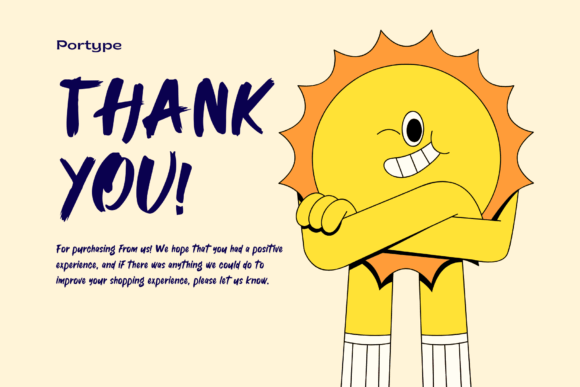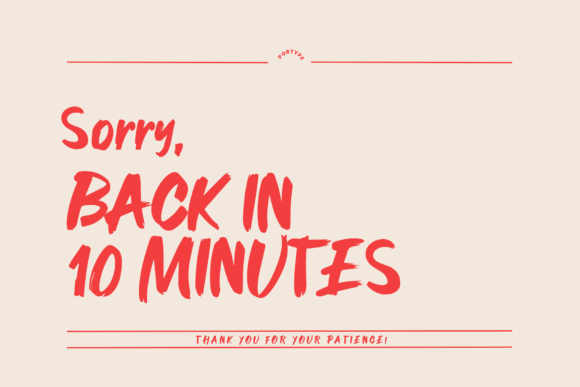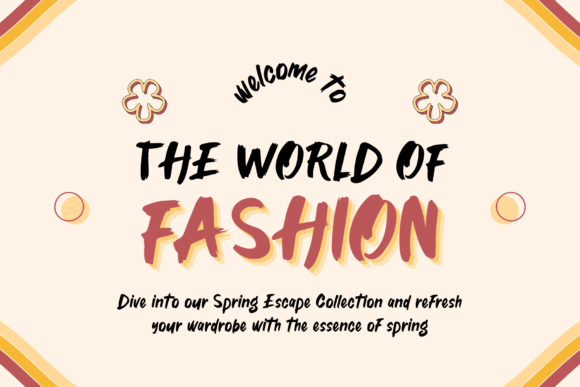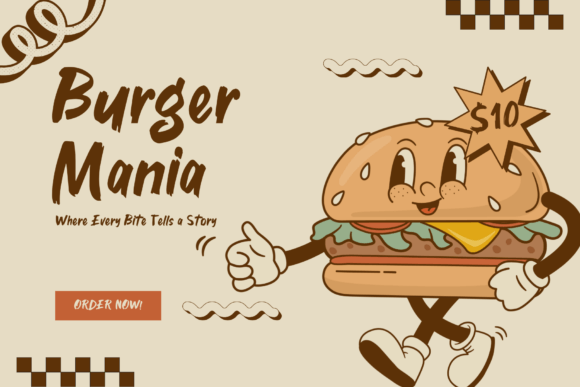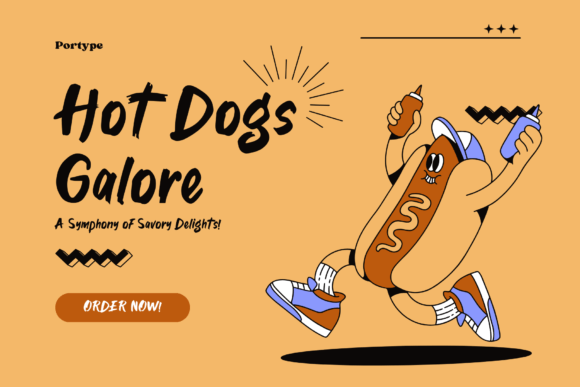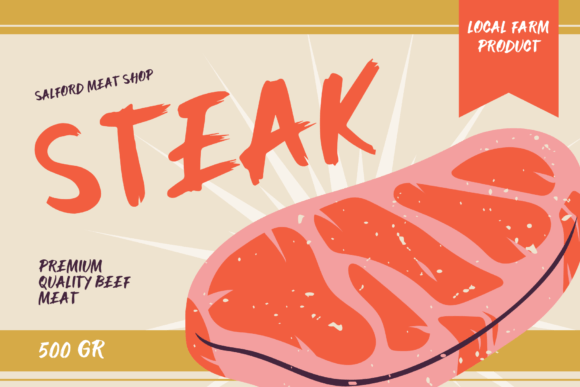
The Perfect Brush Stroke: Unlocking the Power of Bold Bristle Font
Remember that moment when you stumbled upon the perfect brush stroke in your artwork? The one that transported you to a world of creativity and imagination? For designers, finding that perfect brush stroke can be the key to unlocking a project’s full potential. And, for those seeking to add a bold and dynamic touch to their designs, the Bold Bristle Font is an ideal solution.
This brush-style typeface is specifically designed to deliver a strong, expressive artistic touch, perfect for headlines, posters, and creative designs. With its striking strokes and distinctive texture, the Bold Bristle Font adds an authentic, energetic handmade touch to any project, making it a valuable asset for designers looking to stand out from the crowd.
- Unique Characteristics: The Bold Bristle Font features a distinctive, hand-drawn design with bold lines and a textured feel, giving it a unique and eye-catching appearance.
Bold Bristle Font Review
As a designer, I was excited to try out the Bold Bristle Font, and I must say it’s a mixed bag. Here’s what I think:
- The font is indeed bold and bristly, perfect for creating a rugged or vintage look.
- The character set is comprehensive, making it suitable for a wide range of applications.
- The font is well-designed for use in headings and titles, adding a touch of sophistication.
- The font can be a bit too bold for certain applications, making it difficult to read at smaller sizes.
- The bristly texture can be distracting in certain contexts, such as in body text or captions.
- The font is not suitable for use in situations where a clean and minimal look is required.
The Bold Bristle Font is a solid choice for designers looking to add a touch of ruggedness or vintage flair to their work. However, it’s essential to use it judiciously, considering its limitations. With careful application, this font can be a great addition to any design project.
Tips for Getting the Most Out of Bold Bristle Font
Use Bold Bristle Font for headings and titles to add a touch of elegance and sophistication to your design. You can also use it to create a vintage or distressed look by adjusting the font size and style.
Experiment with different font combinations to create a unique and eye-catching design. Bold Bristle Font pairs well with serif and sans-serif fonts, so don’t be afraid to mix and match.
Bold Bristle Font is ideal for designs that require a bold and eye-catching headline. Use it for posters, flyers, and social media graphics to grab attention and convey your message.
It’s also great for creating a vintage or distressed look in designs such as invitations, menus, and packaging.